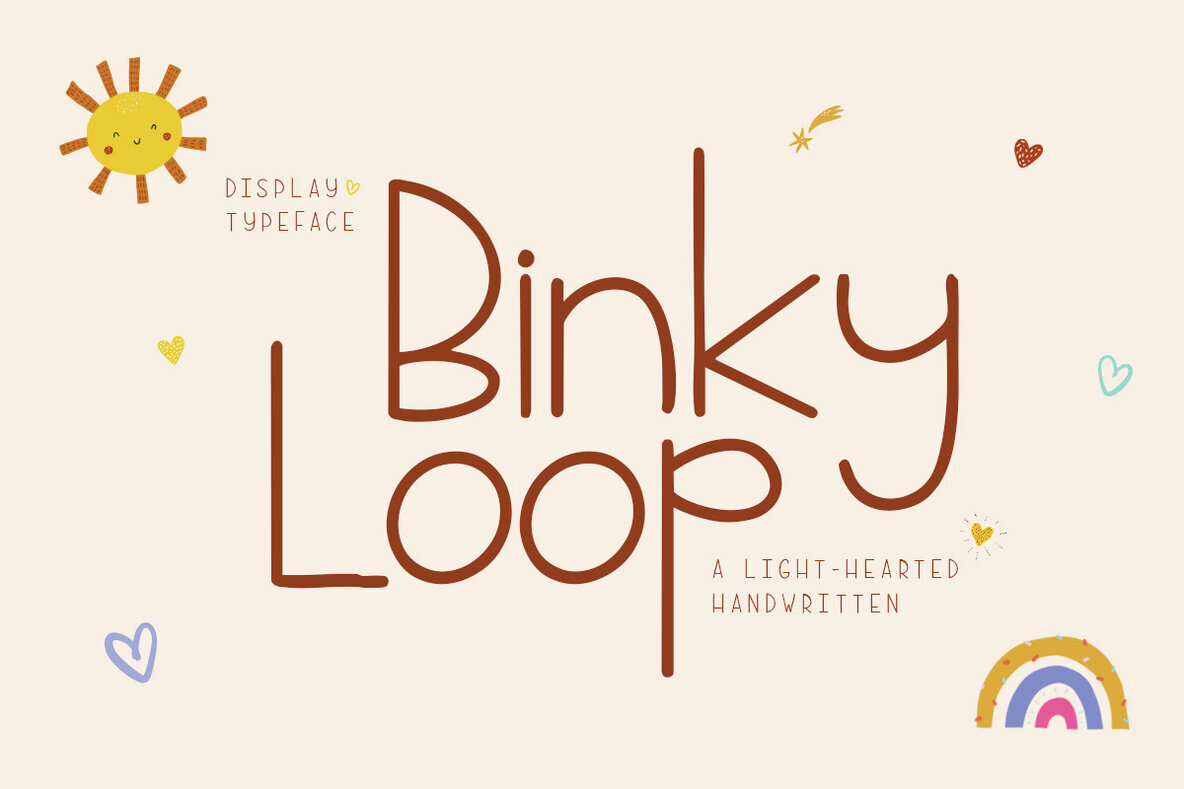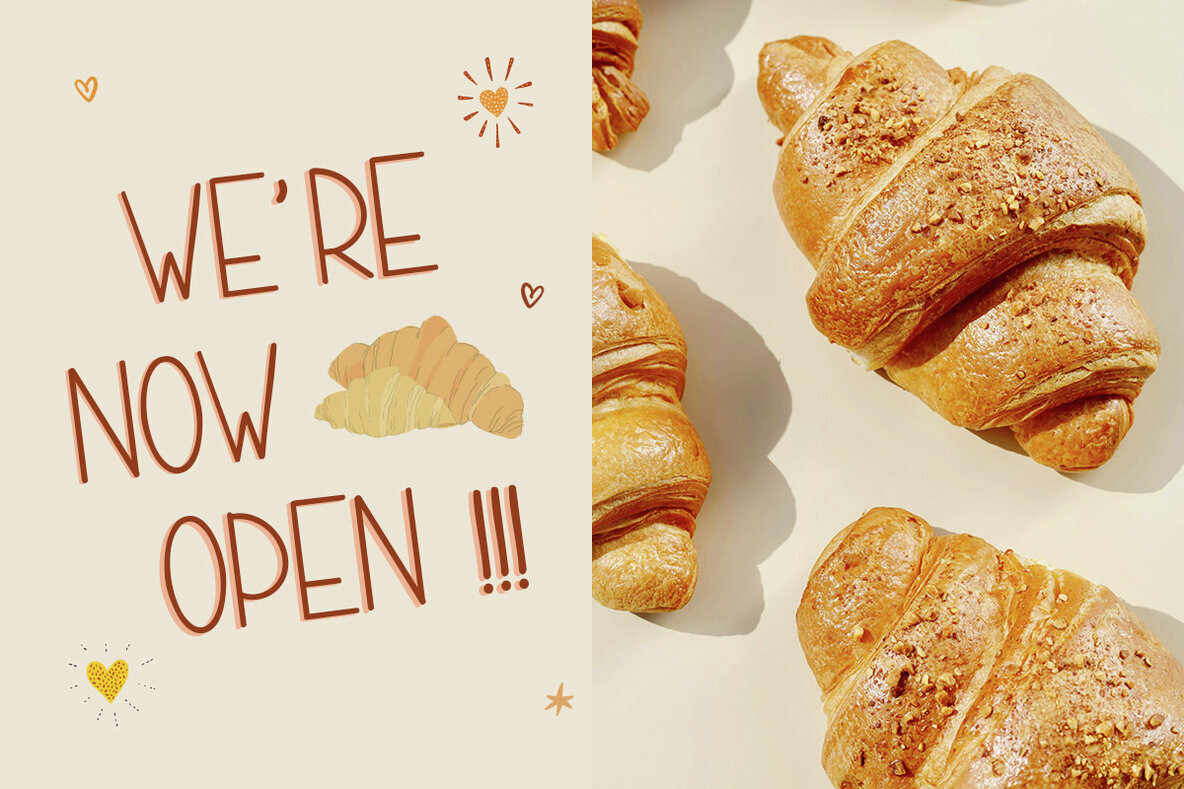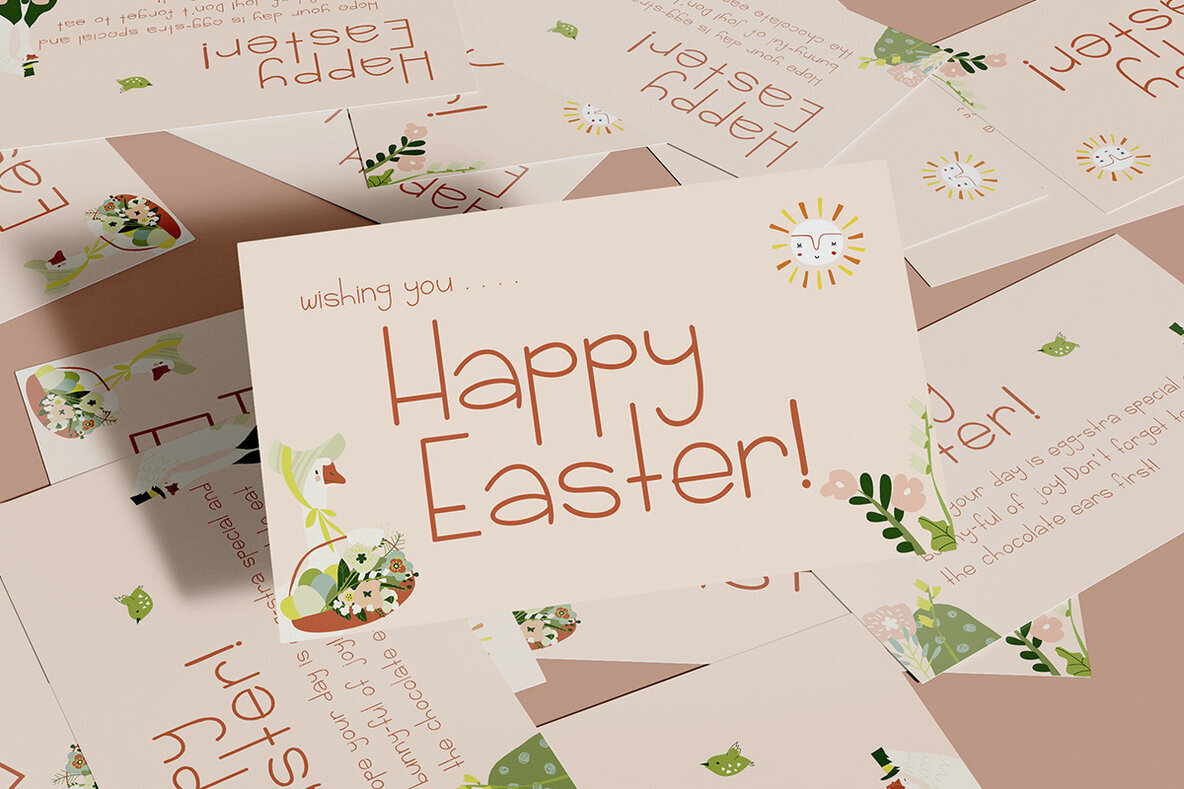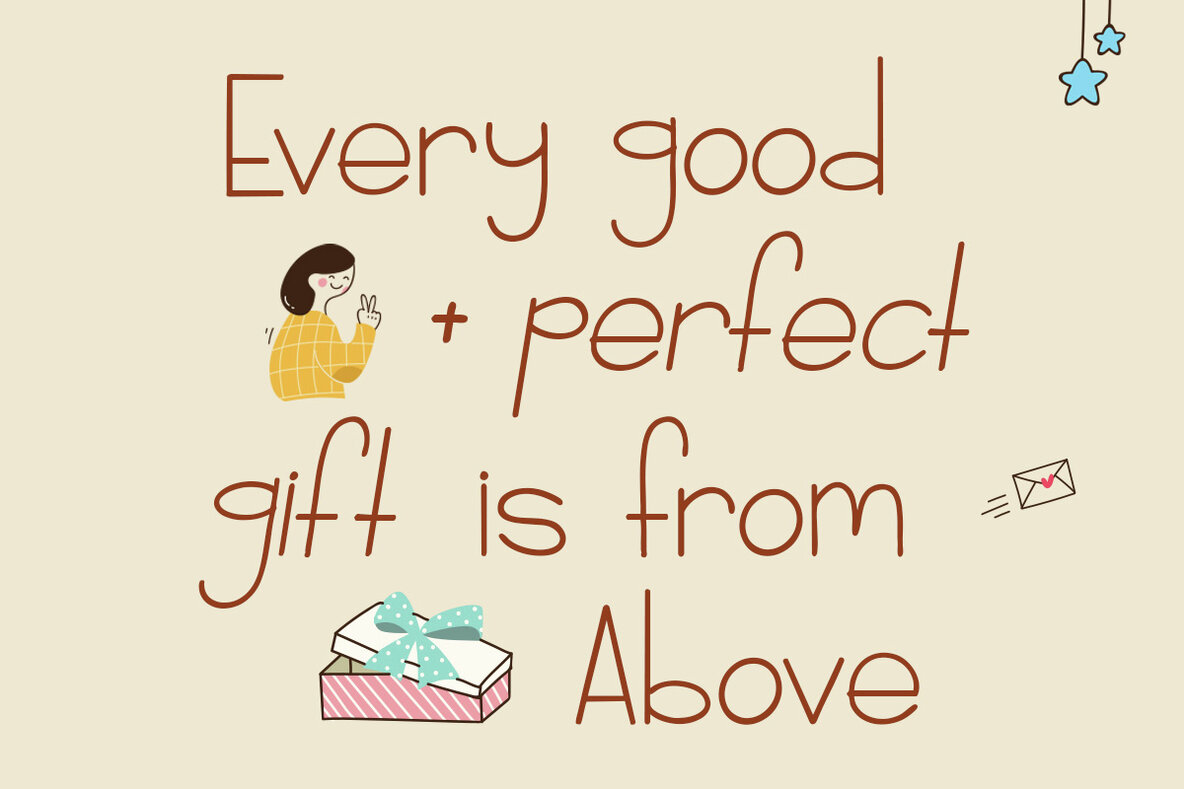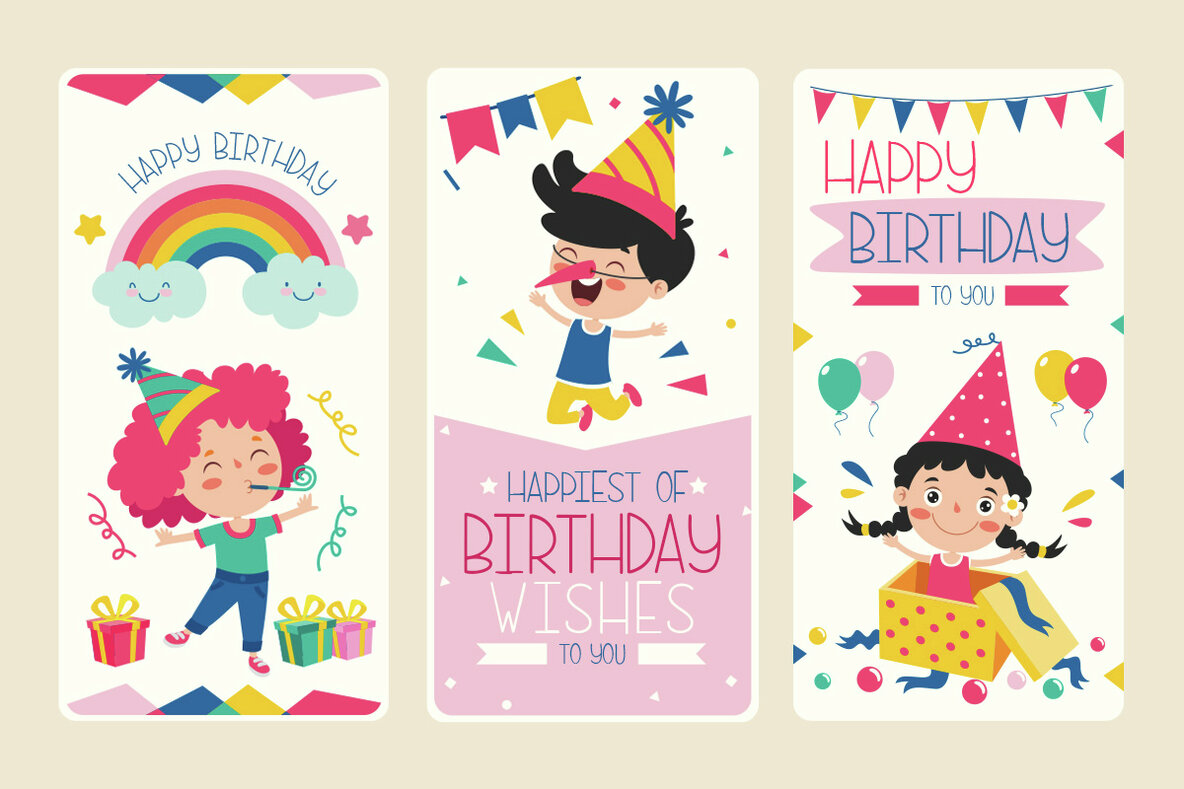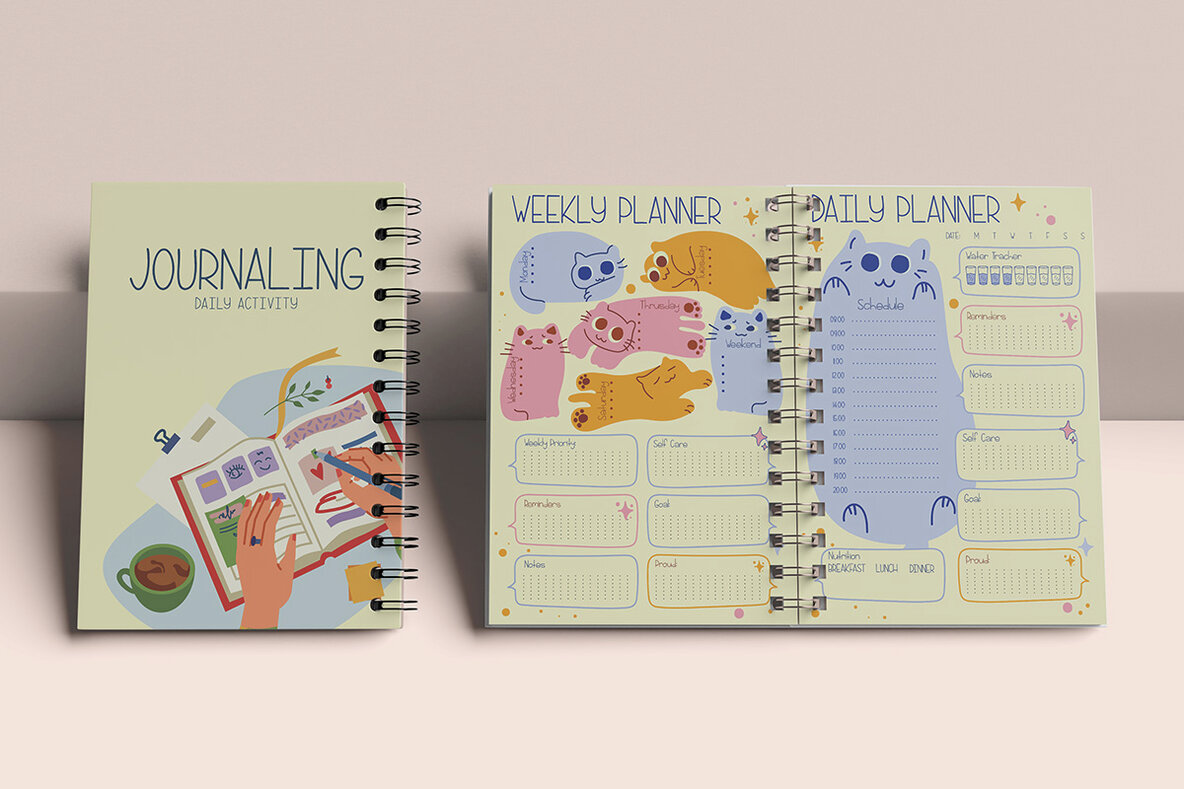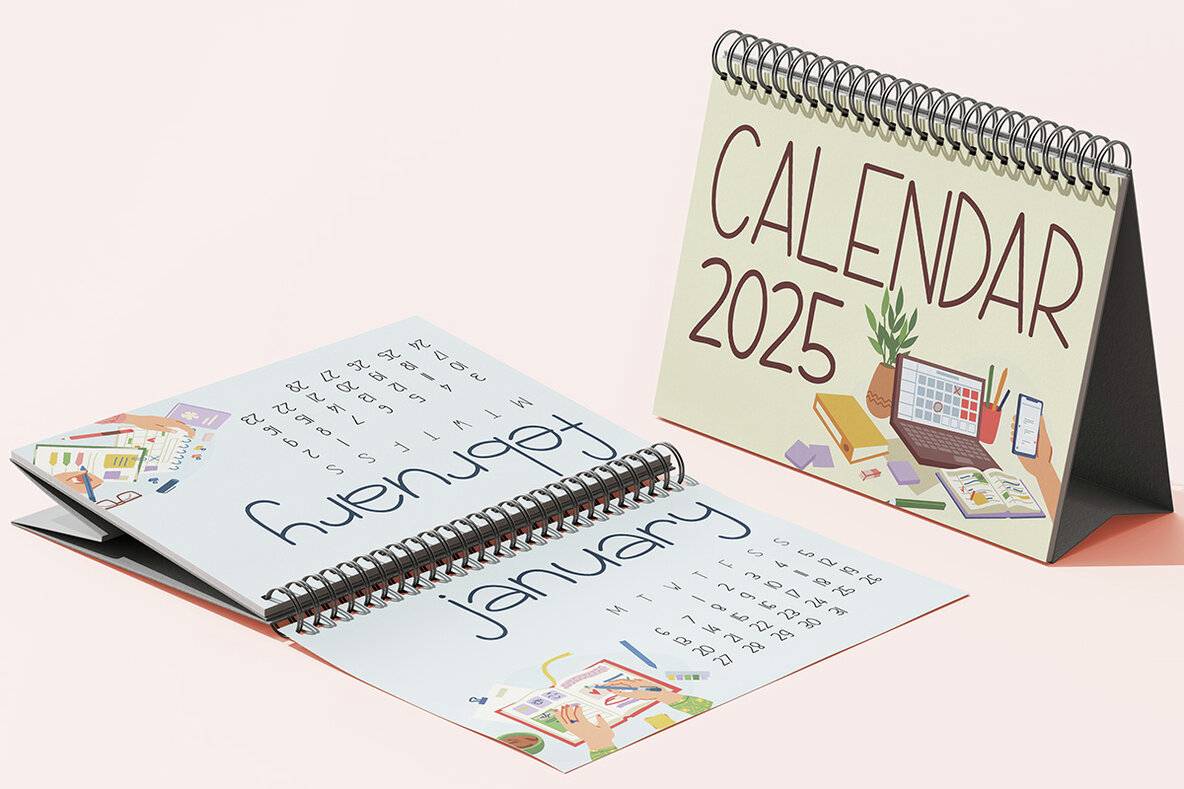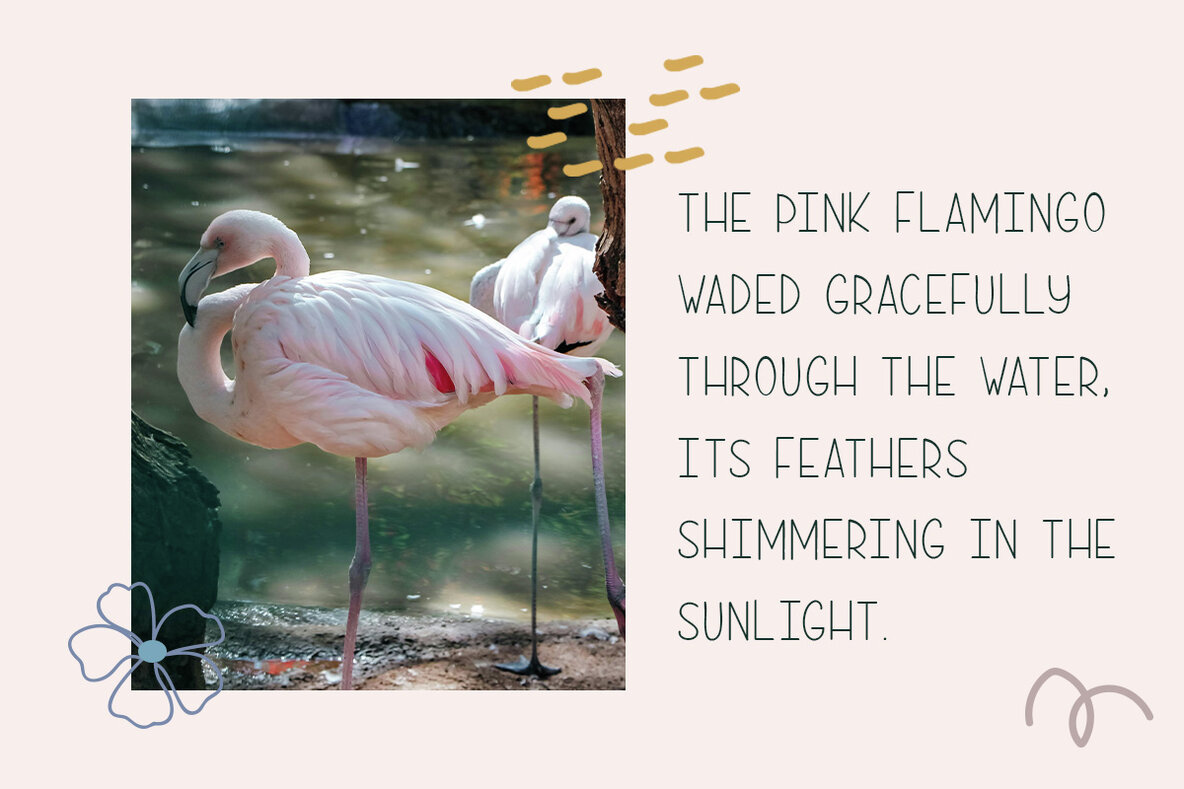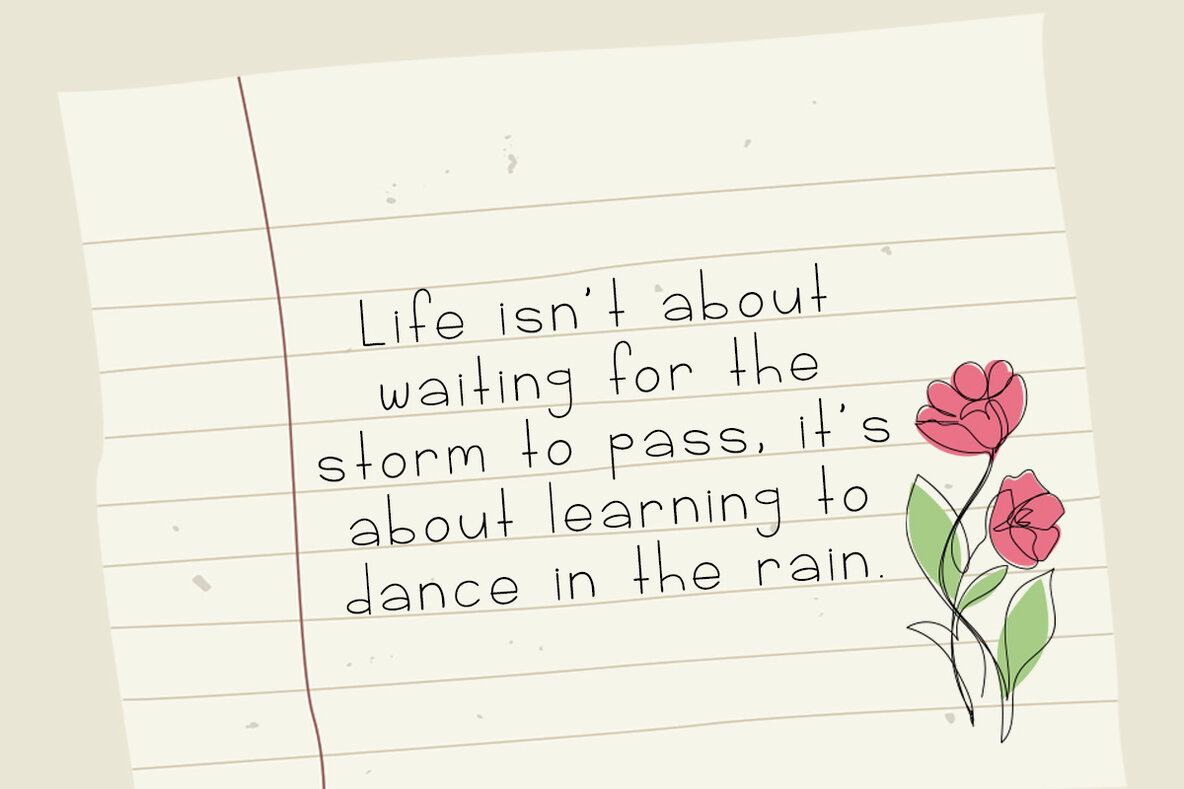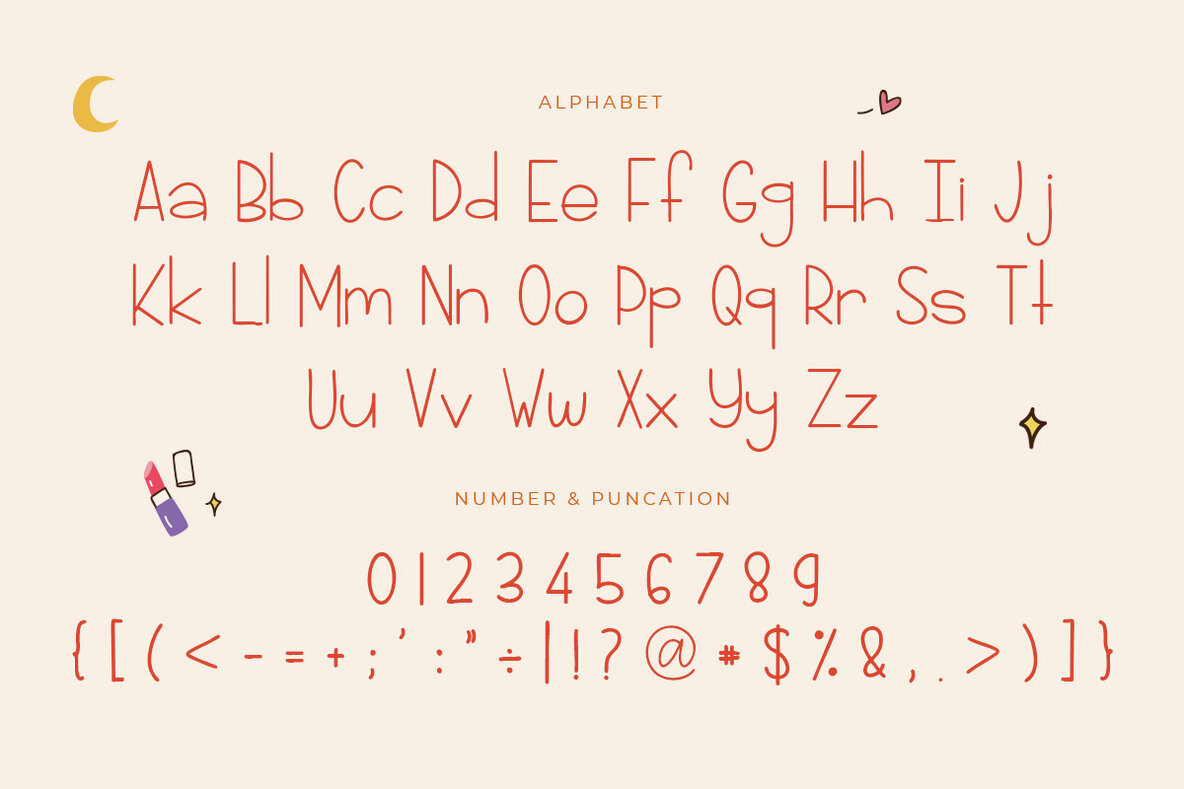
Binky Loop Font
Binky Loop is a delightful handwritten font that infuses joy and playfulness into any project. With its whimsical letterforms and friendly flow, it's ideal for children's designs, cute branding, invitations, greeting cards, and eye-catching social media graphics. Binky Loop effortlessly combines a casual style with clean lines, ensuring your work remains charming yet professional.Binky Loop: A Cheerful Handwritten Font